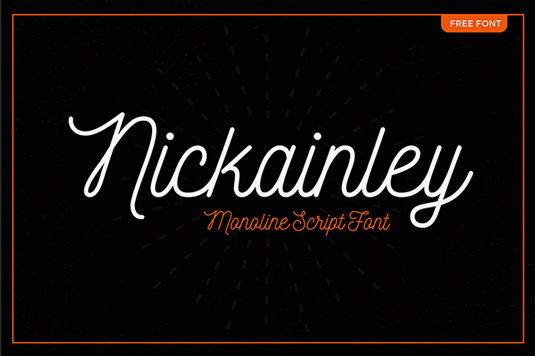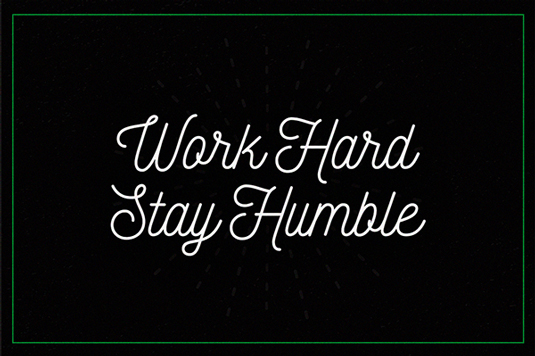
Font of the day: Nickainley Script
Nickainley Script from Seniors Studio
Kicking off our font of the day posts this week is monoline script typeface Nickainley Script. Created by the team at Seniors Studio, Nickainley is described as a 'handwriting font with a touch of classic and vintage'.